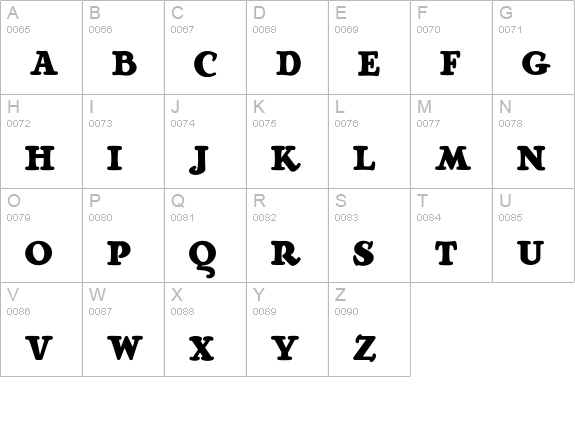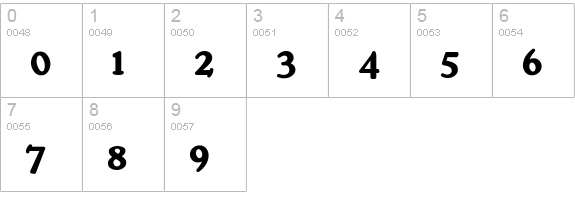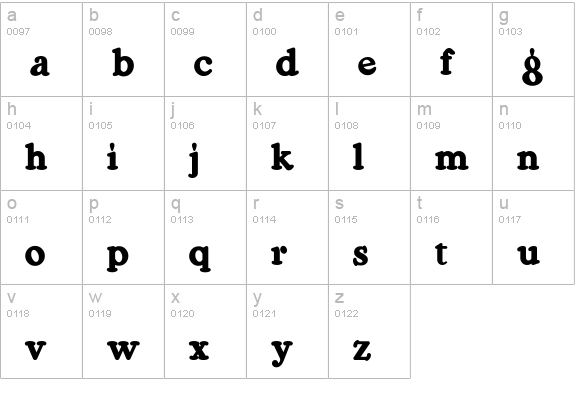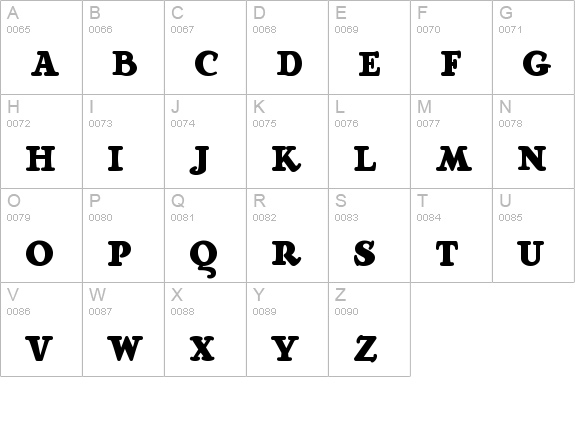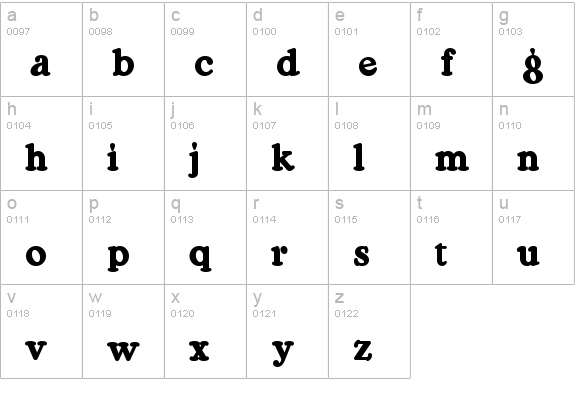
RaggMoppRegular Font Details
RaggMoppRegular is a versatile and charming font that will add a touch of whimsy to any project. Its playful and irregular letterforms give off a sense of childlike innocence, making it perfect for designs aimed at capturing attention and evoking a sense of nostalgia. Whether you're working on a children's book, a birthday invitation, or a funky poster, RaggMoppRegular will be your go-to font for adding a fun and lighthearted feel. One of the best things about RaggMoppRegular is that it is freely available to download at FontsMarket.com. That's right, you can enjoy this delightful font without spending a dime! FontsMarket.com is a trusted source for high-quality fonts, and they offer RaggMoppRegular as a free download, making it accessible to designers and creatives of all levels. With its unique and quirky personality, RaggMoppRegular will bring your designs to life and make them stand out from the crowd. Its hand-drawn aesthetic adds a personal touch, making it perfect for projects that need a touch of individuality and character. Whether you're creating a logo, a website, or a social media graphic, RaggMoppRegular will add that extra charm and personality that sets your work apart. So don't miss out on this fantastic opportunity to get your hands on RaggMoppRegular for free. Head over to FontsMarket.com and start exploring the endless possibilities this font has to offer. Download it today and let your creativity run wild with this delightful and whimsical typeface.